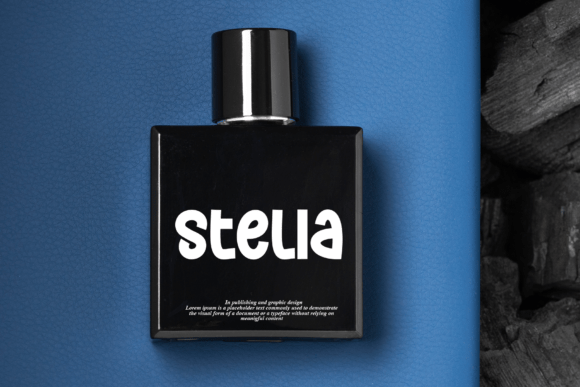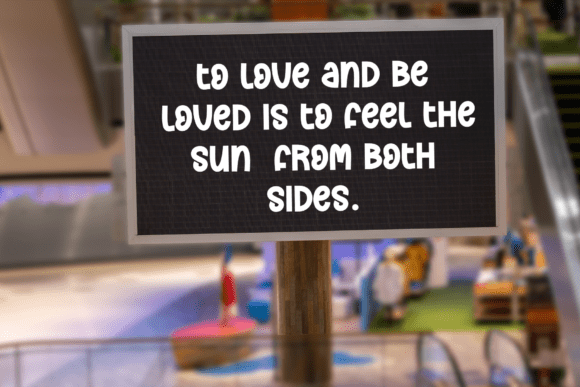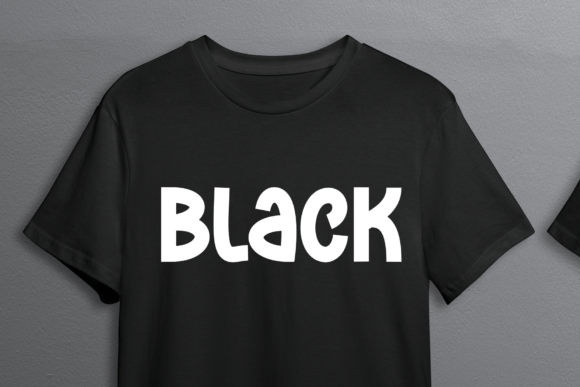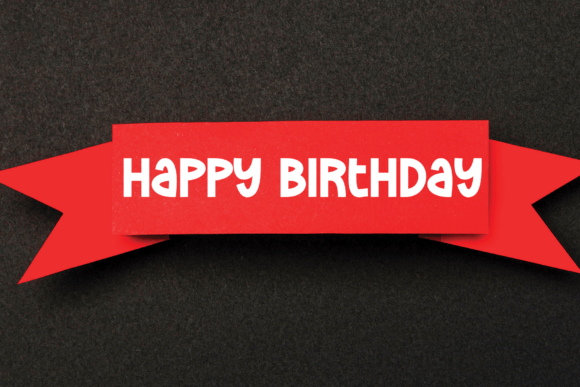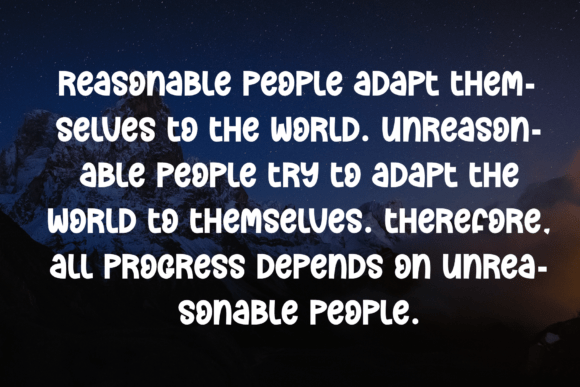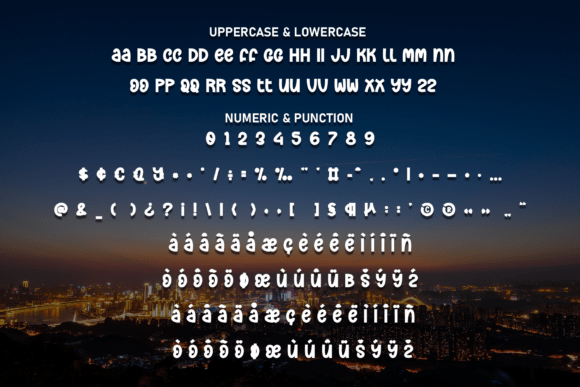
Introduction to Night Sometime Font
Introducing a charming and amiable handwritten display font that infuses an affectionate and playful touch into your design projects.
Its delightful character makes it a splendid choice for crafting wedding invitations, personalizing cards, or adding a joyous aesthetic to any artistic piece With its blend of sweet approachability and quirky fun, this font breathes real life onto your digital canvas.
Key Features of Night Sometime Font
Why Choose Night Sometime Font?
Night Sometime Font offers exceptional quality and versatility, making it a valuable addition to your design toolkit. Whether you’re creating for personal projects or commercial use, Night Sometime Font delivers professional results.